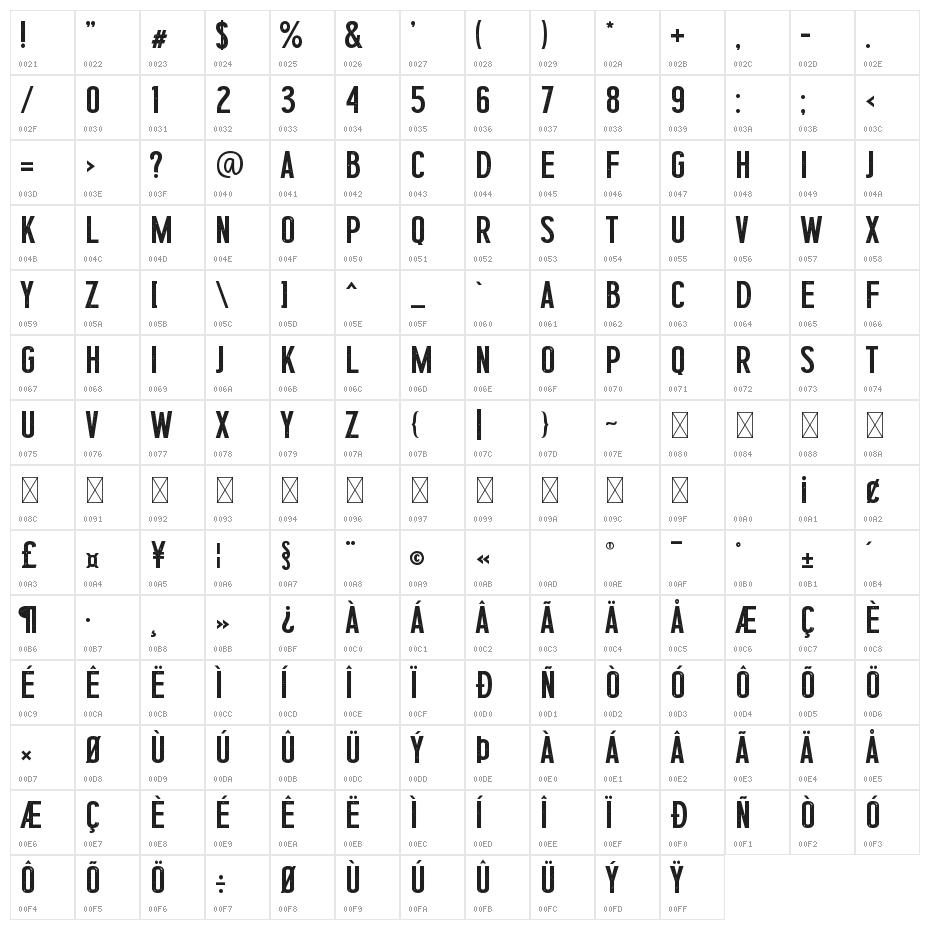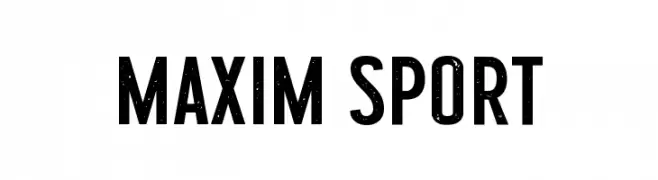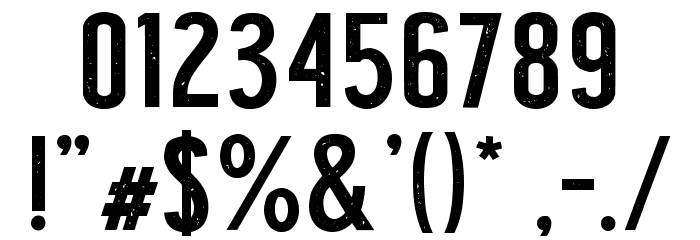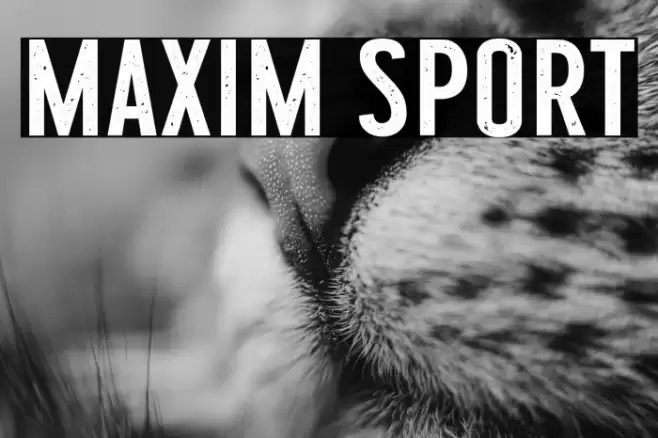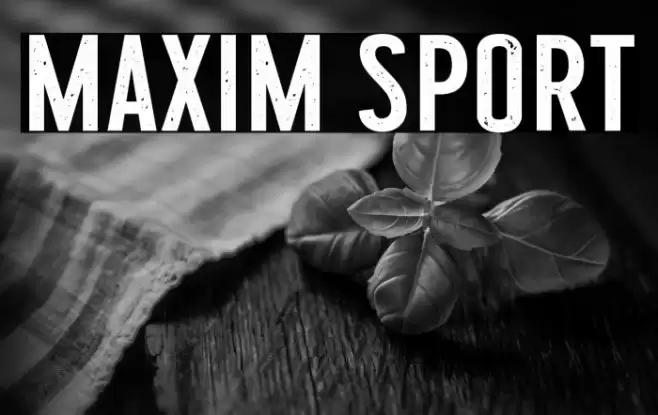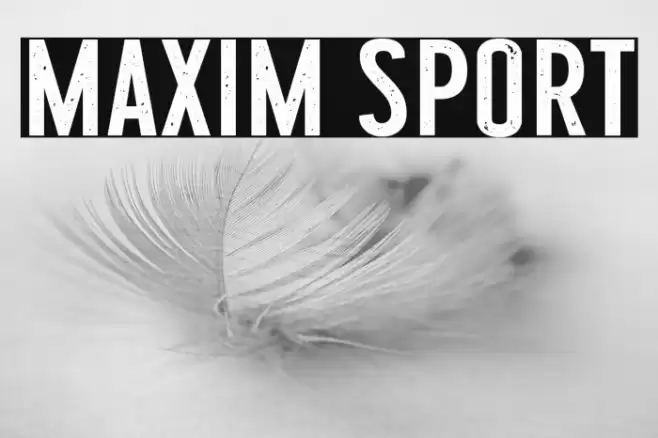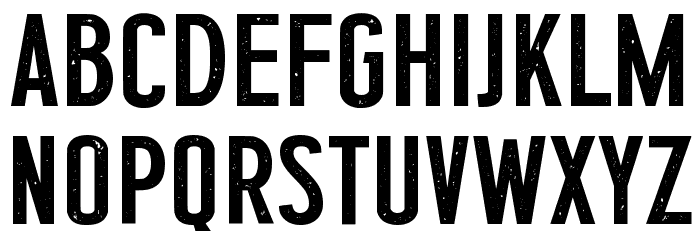
Maxim Sport Font
Fonts by Fontherapy | Kalifont Studio
| Proiecte propuse | Ideal for sports branding, vintage posters, apparel design, and impactful headlines. |